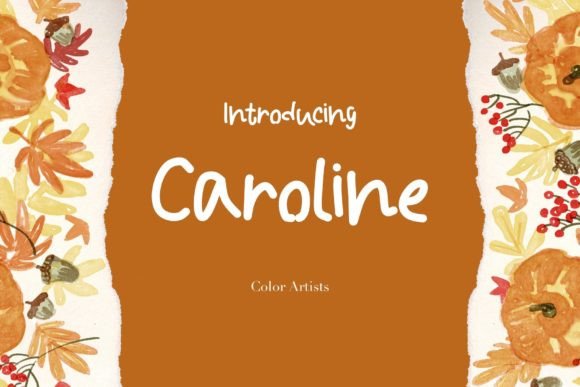
I still remember the frustration of working on a project, pouring my heart and soul into every detail, only to hit a roadblock: finding the perfect font. My client wanted something elegant, sophisticated, and timeless – a font that would elevate their brand and leave a lasting impression. I scoured the internet, tried countless combinations, but nothing seemed quite right. That was until I stumbled upon Caroline, our exquisite new font that has since become my go-to for projects that demand a touch of glamour.
Meet Caroline: A Masterclass in Elegance
Caroline is more than just a font – it’s an experience. With its graceful curves, refined details, and a touch of modern sophistication, it’s designed to captivate and inspire. Whether you’re a designer, crafter, or creative hobbyist, Caroline has the power to transform your work and add a level of polish that’s hard to achieve with ordinary fonts.
What I Love About Caroline ✨
- ✅ Elegant and refined: Caroline’s curves and lines are meticulously crafted to convey sophistication and poise.
- ✅ Versatile: From headings and titles to body text, Caroline adapts seamlessly to different contexts and sizes.
- ✅ Modern feel: A subtle hint of modernity prevents Caroline from feeling too traditional or stuffy.
- ✅ OpenType features: Access a range of ligatures, stylistic alternates, and glyphs to add depth and personality to your text.
- ⚠️ Kerning adjustments: As with any font, some manual kerning adjustments may be necessary, especially in larger text sizes.
- ⚠️ Limited availability of certain characters: While Caroline includes a wide range of characters, some specialized or non-standard characters might not be available.
Caroline was inspired by the timeless elegance of 18th-century calligraphy and the refined sophistication of modern typography. Our design team sought to create a font that would evoke the luxury and poise of a bygone era while still feeling fresh and contemporary. The result is Caroline – a font that embodies the perfect balance of classic charm and modern sophistication.
Q: What makes Caroline unique?
A: Caroline’s unique blend of classic elegance and modern sophistication sets it apart from other fonts. Its refined details, graceful curves, and OpenType features make it an excellent choice for designers seeking a touch of luxury.
Q: Does Caroline support non-English languages?
A: Caroline includes a range of characters and glyphs to support various languages. However, it’s essential to check the font’s character set and language support to ensure it meets your specific needs.